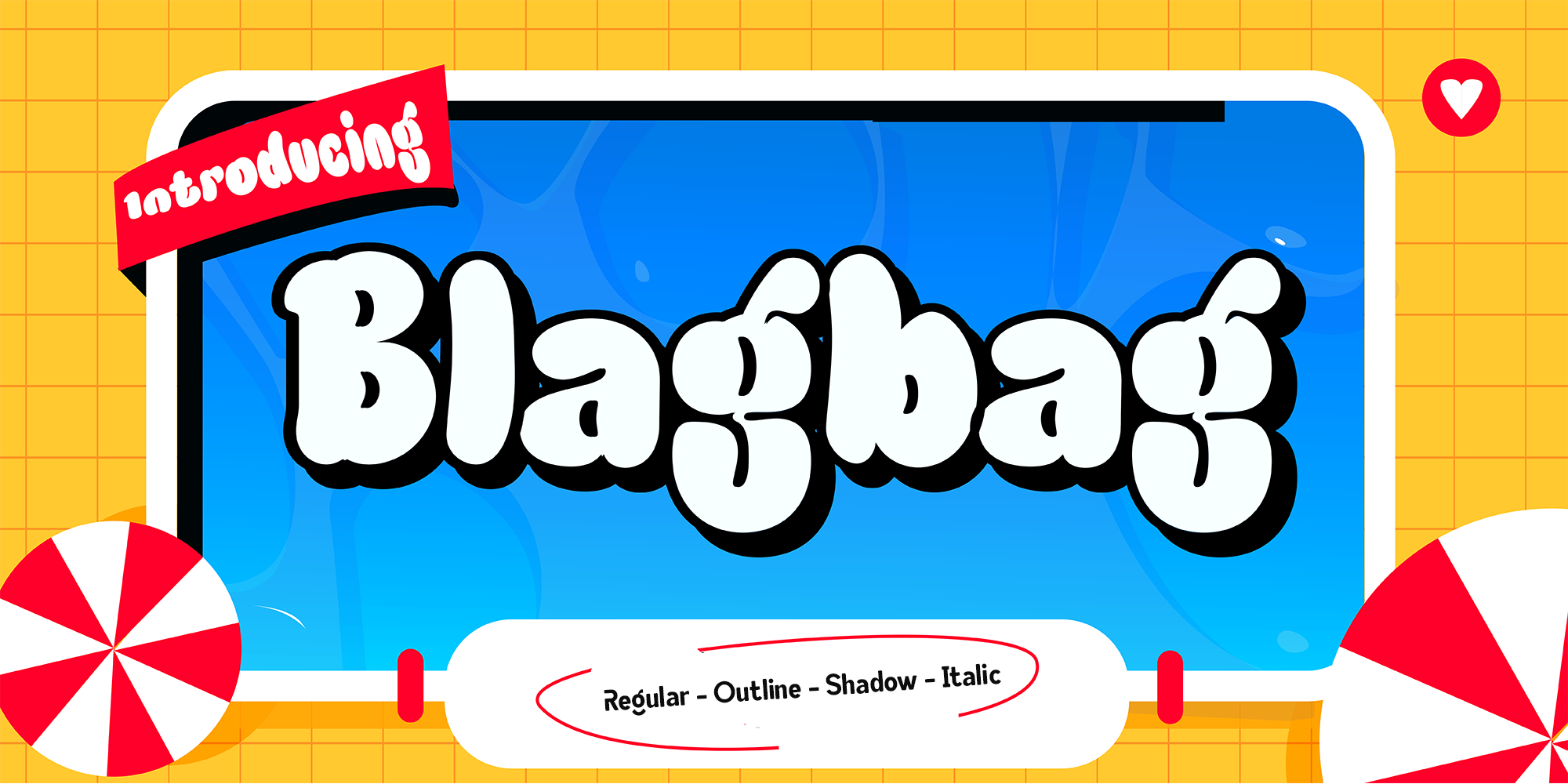
Blagbag Font excels in quirky indie brand logos, creative studio signage, eclectic art gallery displays, unconventional social media graphics, playful podcast covers, alternative music venue branding, bohemian cafe materials, and artistic expression campaigns. Its distinctive character makes it perfect for projects celebrating creative individuality and artistic nonconformity.
What makes Blagbag Font exciting is its refreshingly unique ability to break conventional design rules through boldly irregular letterforms that celebrate creative chaos and artistic freedom. The unconventional construction features playful asymmetry with unexpected character variations that capture the essence of creative rebellion. This typeface embodies artistic individuality and creative courage, making every design feel authentically original and refreshingly different.
Blagbag Font family includes Regular, Bold, Light, Messy, Clean, and Experimental variations, offering designers comprehensive tools for creating distinctive alternative typographic compositions that celebrate creative nonconformity.
Unleash your creative rebellion with the distinctive originality of Blagbag Font Free Download. This unconventional typeface brings artistic individuality to any design project, whether you're developing brand identities for creative agencies, crafting promotional materials for alternative arts venues, or designing graphics for indie entertainment. The font's rebelliously creative architecture and nonconformist presence make it essential for projects requiring authentic artistic appeal. Blagbag Font perfectly captures the essence of creative freedom while ensuring surprising readability across all alternative applications. Its individualistic character forms and artistically-inspired design language make it ideal for brands seeking to communicate creative authenticity and artistic courage, delivering memorable results that resonate with audiences who embrace creative rebellion, artistic expression, and the bold spirit of unconventional design that refuses to follow mainstream trends.